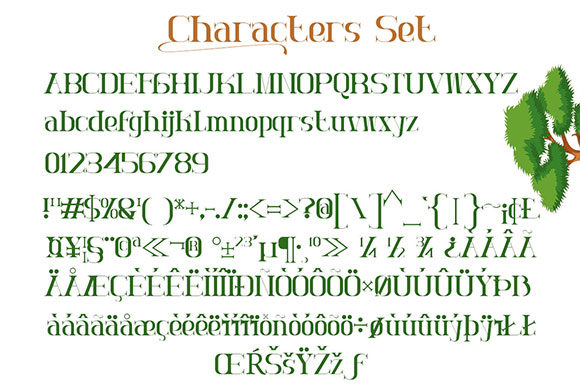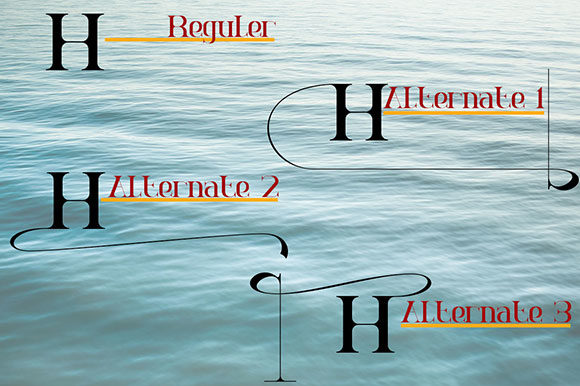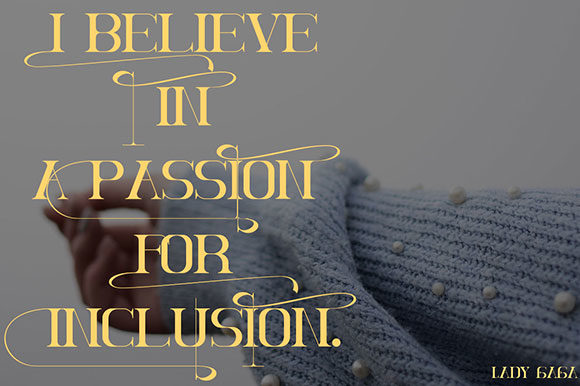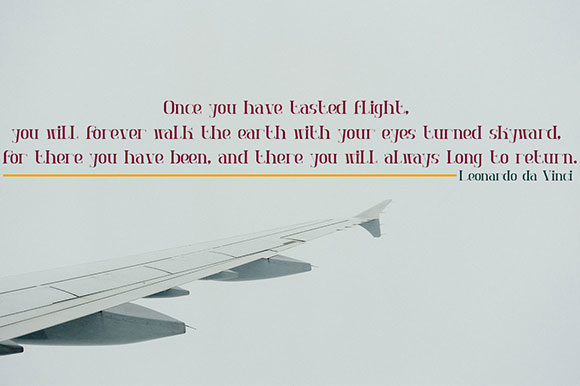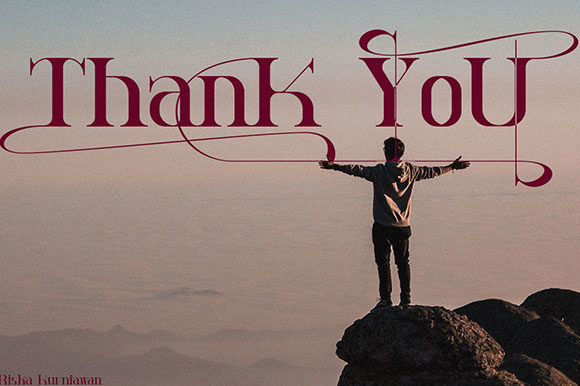
The Arch Diary Font: A Unique Serif for Emotional Expression
Have you ever been in the middle of a design project, pouring your heart and soul into it, only to realize that something’s missing? You’re not quite sure what it is, but you know it’s not quite right. For me, that something was a font that could convey the emotions and feelings I wanted to express in my design. That’s when I stumbled upon the Arch Diary font, and let me tell you, it’s been a game-changer.
A Personal Design Moment: Finding the Right Font
I was working on a project for a client who wanted a design that would evoke a sense of nostalgia and warmth. I had all the elements in place – the colors, the imagery, the layout – but I just couldn’t find the right font to tie it all together. I spent hours scouring the internet, trying out different fonts, but nothing seemed quite right. That was until I came across the Arch Diary font. Its unique blend of thick curves and thin lines immediately caught my eye, and I knew I had found what I was looking for.
- ✨ Unique and elegant design that’s perfect for expressing emotions and feelings
- ✅ Thick curves and thin lines that add a touch of sophistication to any design
- ✅ Includes 3 alternates that can be used to give your design an extra touch of elegance
- ✅ Perfect for designers, crafters, and creative hobbyists who want to add a personal touch to their work
While the Arch Diary font is an amazing addition to any design project, there are a few things to keep in mind. ⚠️ Some users have reported issues with kerning, particularly when using the font at smaller sizes. Additionally, the font may not be suitable for very long blocks of text, as it can be a bit overwhelming to read.
The Arch Diary font was designed by a team of designers who wanted to create a font that would evoke emotions and feelings. They drew inspiration from classic serif fonts, but with a modern twist. The result is a unique and elegant font that’s perfect for designers, crafters, and creative hobbyists who want to add a personal touch to their work.
Q: What is the Arch Diary font?
A: The Arch Diary font is a unique serif font that’s designed to evoke emotions and feelings. It has a strong and elegant design that’s perfect for designers, crafters, and creative hobbyists.
Q: What are the OpenType features of the Arch Diary font?
A: The Arch Diary font includes 3 alternates that can be used to give your design an extra touch of elegance. It also supports OpenType features such as ligatures and stylistic alternates.